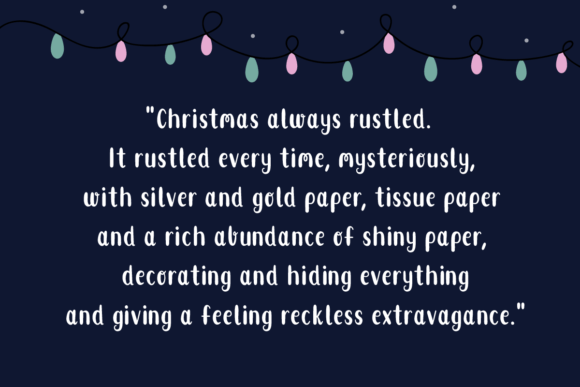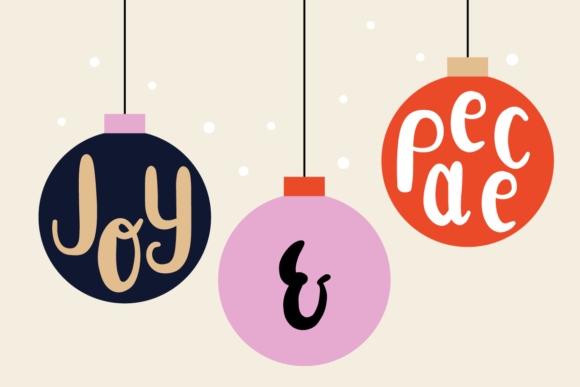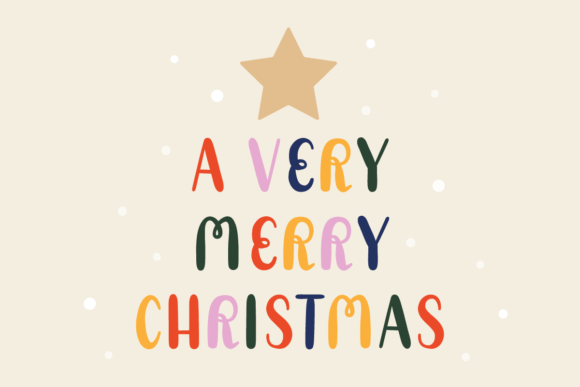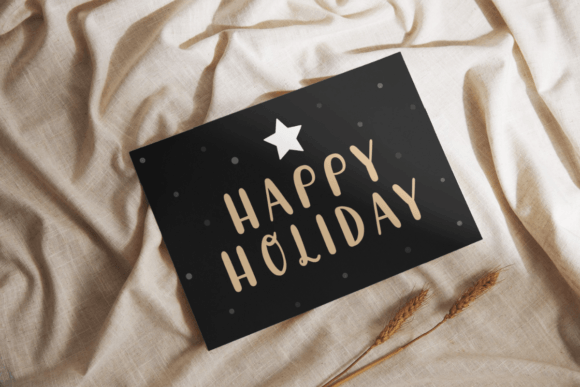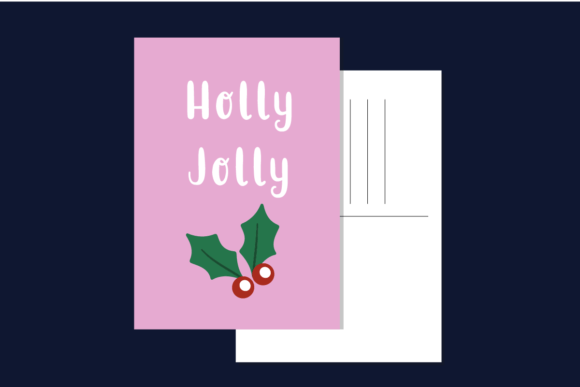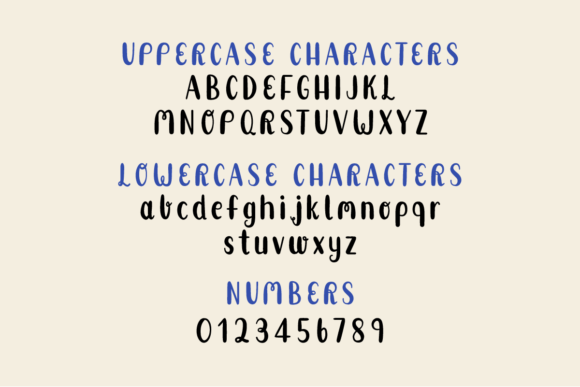
Introducing Dear Santa Font: The Ultimate Christmas Script Font
Are you looking for a beautiful and classy script font to elevate your Christmas projects? Look no further than Dear Santa Font! This stunning font is perfect for designers and crafters who want to add a touch of elegance and sophistication to their holiday designs. In this article, we’ll explore the features and benefits of Dear Santa Font, and show you how to make the most of this versatile font.
A Beautiful and Classy Script Font
Dear Santa Font is a gorgeous script font that exudes a sense of luxury and refinement. Its flowing curves and intricate details make it perfect for creating high-end designs that are sure to impress. Whether you’re working on a Christmas project, a retro design, or a playful quote, Dear Santa Font is the perfect choice. Its classy and sophisticated look makes it ideal for designs that require a touch of elegance.
Perfect for Christmas Projects
As its name suggests, Dear Santa Font is perfect for Christmas projects. Its festive and fun design makes it ideal for creating holiday-themed designs, such as Christmas invitations, greeting cards, and posters. You can also use it to create custom Christmas shirts, mugs, and stickers that are sure to delight your friends and family.
Versatile and Multifaceted
One of the best things about Dear Santa Font is its versatility. It’s not just limited to Christmas projects; you can use it for a wide range of designs, including:
- Retro designs: Add a touch of nostalgia to your designs with Dear Santa Font’s vintage-inspired look.
- Playful quotes: Use Dear Santa Font to create fun and playful quotes that are perfect for social media, posters, and greeting cards.
- Logos and branding: Create a professional and sophisticated logo for your business or brand with Dear Santa Font.
- Packaging: Use Dear Santa Font to create eye-catching packaging that stands out on store shelves.
- Illustrations: Add a touch of elegance to your illustrations with Dear Santa Font’s beautiful script design.
Easy to Use and Customize
| Font Name | Dear Santa Font |
| Author | Nyla.studio |